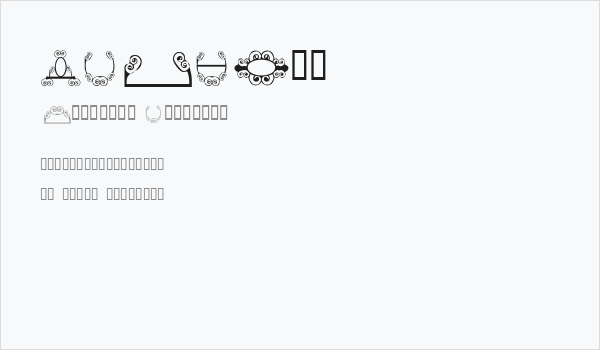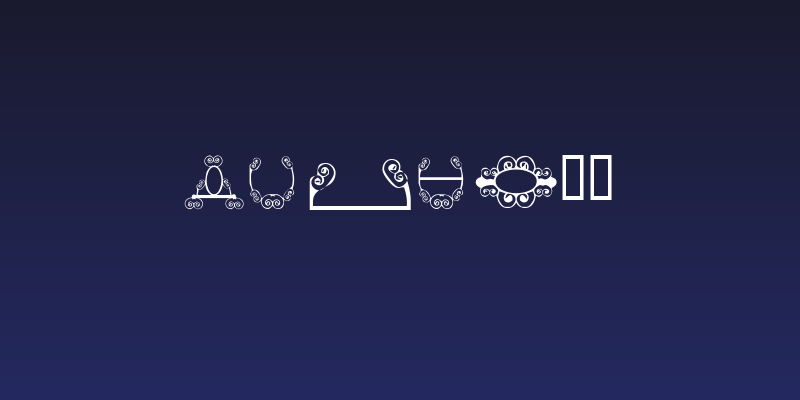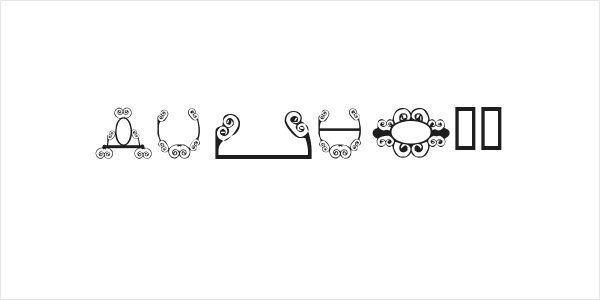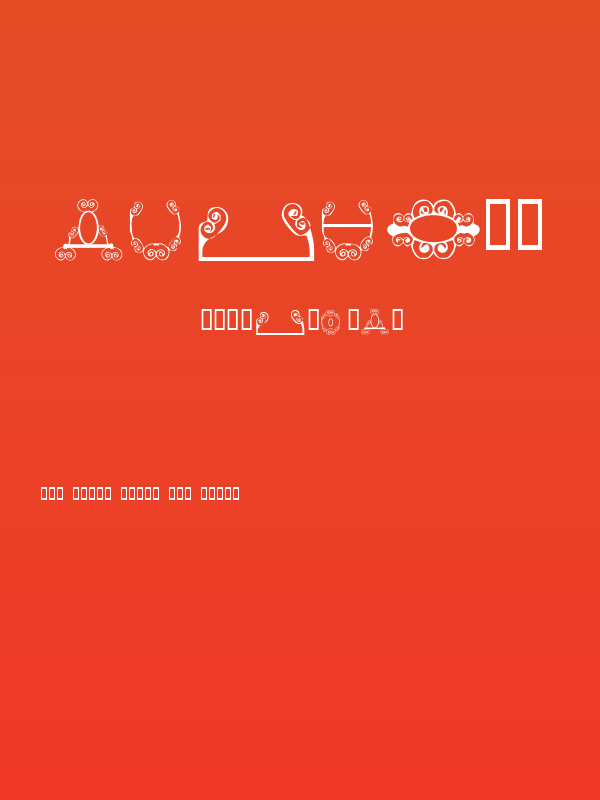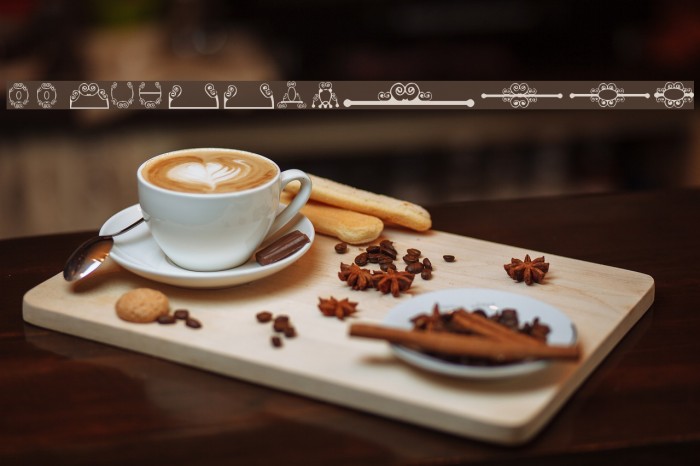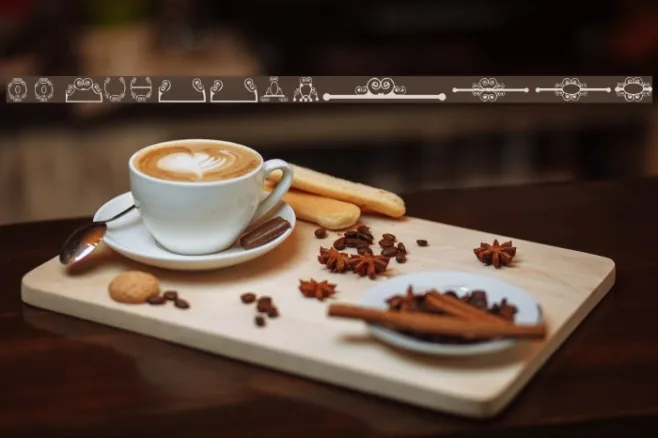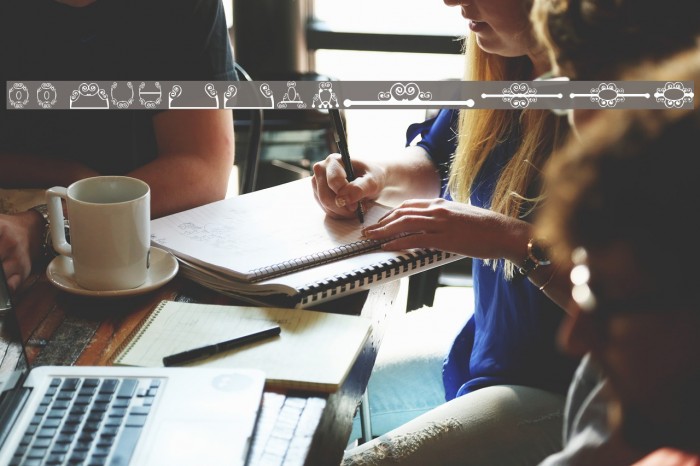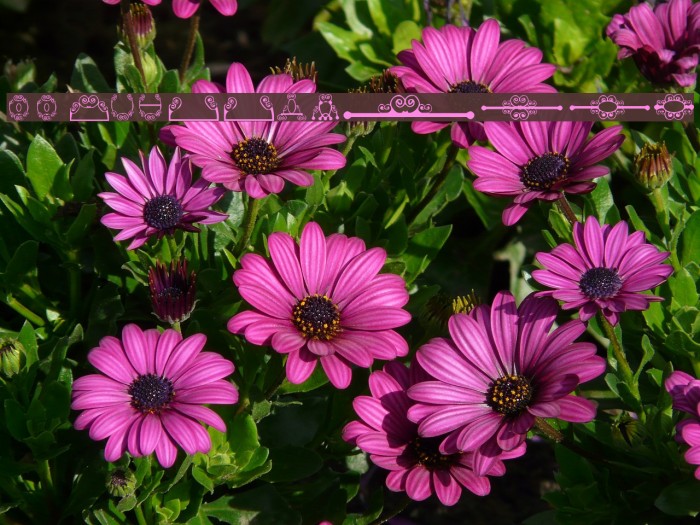
HDGEMS5 Font
HDGEMS5 Description
This font is a decorative and ornamental typeface featuring intricate and artistic embellishments. Each character is adorned with unique flourishes and swirls, creating a whimsical and elegant appearance. The design is reminiscent of vintage calligraphy, with a playful yet sophisticated touch. The characters are highly stylized, making them suitable for creative and artistic projects where a distinctive and eye-catching look is desired. The font's ornate style makes it ideal for use in decorative headings, invitations, and branding that requires a touch of elegance and creativity.
| Overall Style | Vintage, Decorative |
| Proposed Projects | Ideal for wedding invitations, artistic branding, decorative headings, and creative projects requiring an elegant touch. |